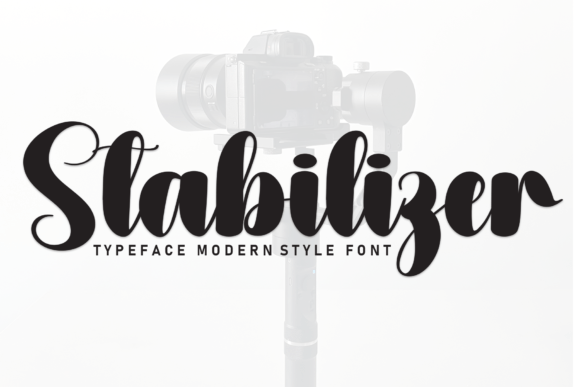
Welcome to the world of Stabilizer Font, a journey where letters dance with elegance and charm. Crafted by the creative genius of Strongkeng Old, Stabilizer Font belongs to the enchanting realm of script fonts, a family renowned for its ability to infuse warmth, playfulness, and a touch of whimsy into any design.
Born from the desire to capture the essence of handwritten beauty, Stabilizer Font is a symphony of flowing strokes and graceful curves. Each letter dances across the page like a delicate brushstroke, carrying with it a sense of intimacy and personal connection. Its gentle curves and organic shapes evoke the warmth of a handwritten note, inviting the reader to engage with your designs on a deeper level.
Immerse yourself in the world of Stabilizer Font and discover a treasure trove of possibilities. Whether you're crafting heartfelt wedding invitations, sending personalized cards to loved ones, or designing enchanting branding materials, this versatile font will lend its charm to every project. Its whimsical nature adds a touch of joy and playfulness, while its sophisticated strokes elevate your designs with a hint of elegance.
With Stabilizer Font, you'll find a soulmate for your creative endeavors. It's the perfect choice for adding a personal touch to your projects, transforming them from ordinary to extraordinary. Embrace the beauty of handwritten art and let Stabilizer Font guide you on a journey of creative expression.